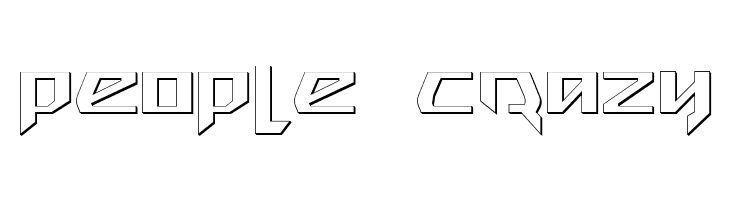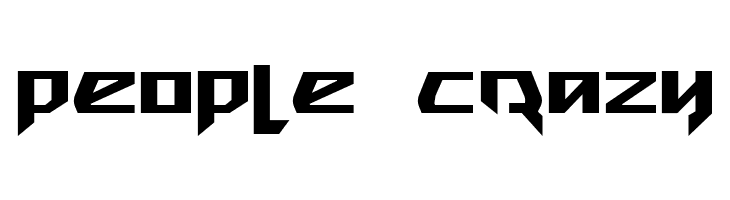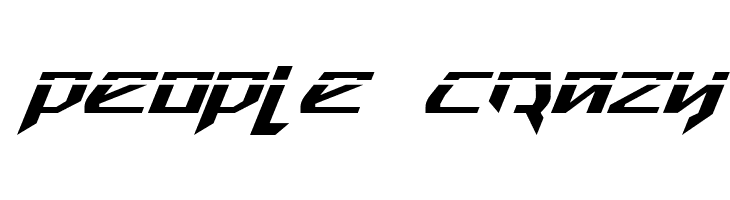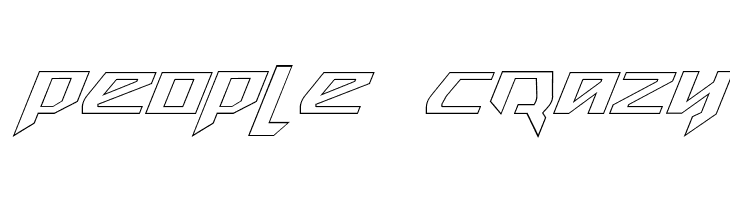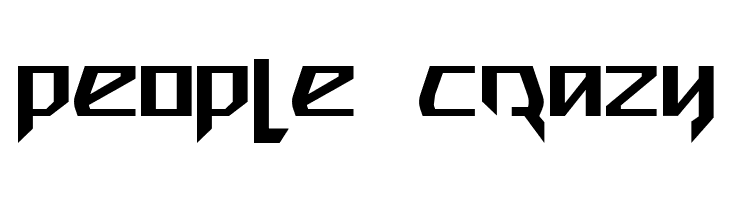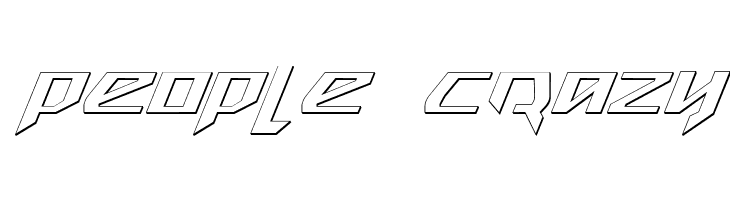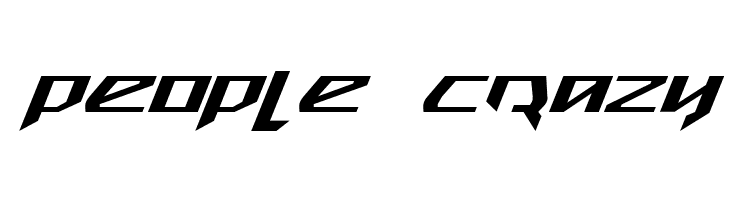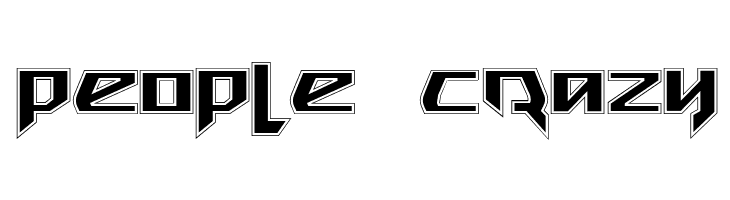
Ampere Extended Italic Font
A bold, futuristic font with sharp angles and a 3D effect.
A futuristic, angular font with a bold, sci-fi aesthetic.
A bold, angular, and futuristic outlined font with an italic slant.
A bold, angular font with a futuristic and dynamic design.
A bold, angular, and futuristic 3D italic font with sharp edges.
A bold, angular, and futuristic font with an italic and expanded style.
A bold, angular font with a futuristic and edgy design.